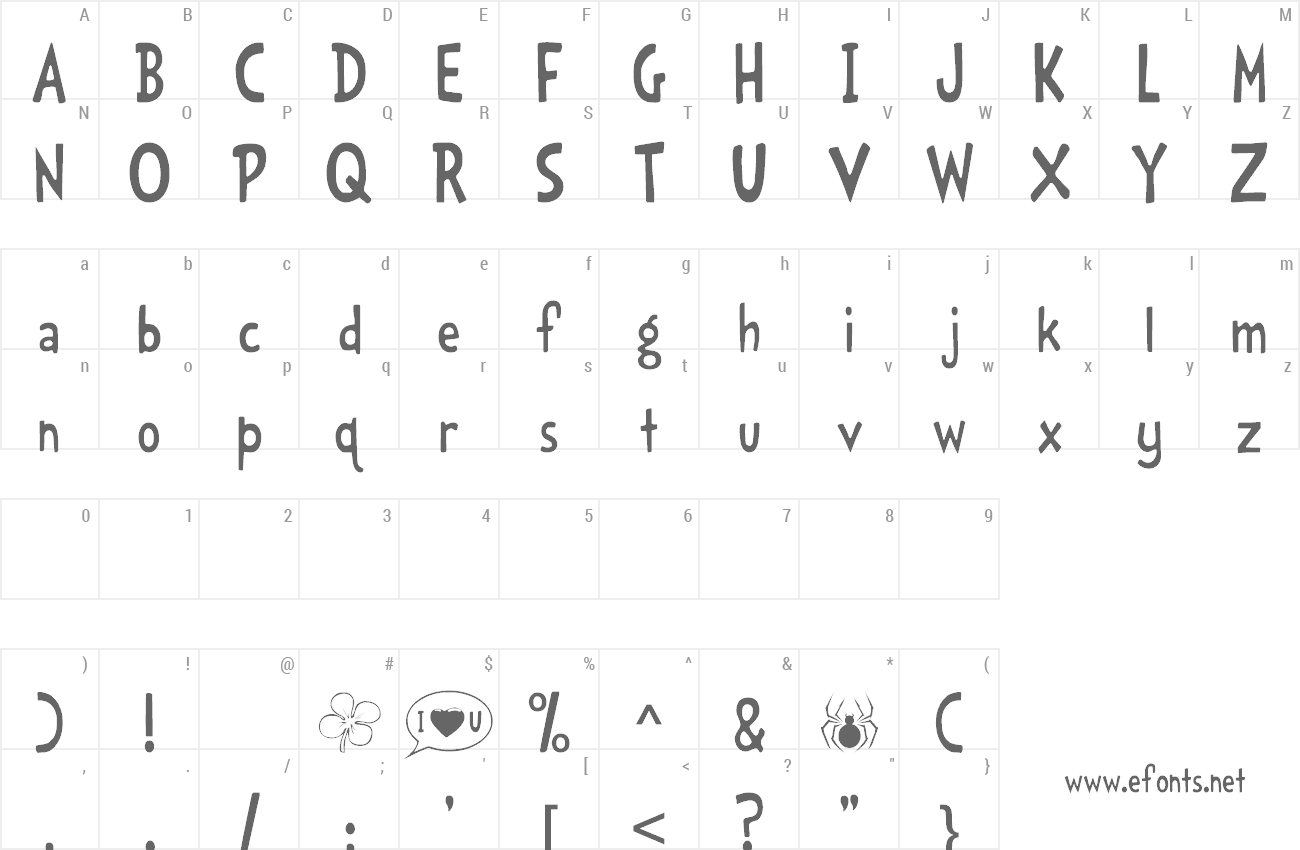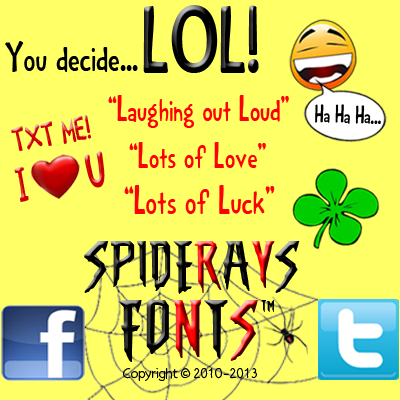
Preview and download LOL! Font. Created by SpideRaYsfoNtS in Fancy Comic styles with Free for personal use license.
Not much of a SMS TXT message sender myself however I kept putting LOL at the end of my TXT messages and on facebook to say Lots of Love then a friend told me that the first use of the shortened LOL in text slang actually meant Laugh(ing) out Loud. When I created the comic type font this was on my mind so hence the name I guess it's up to you might need Lots of Luck to decide! For the fully kerned OTF embeddable commercial version with numbers and accented glyph's please visit my Etsy Store @ http://etsy.me/2eauf4p |